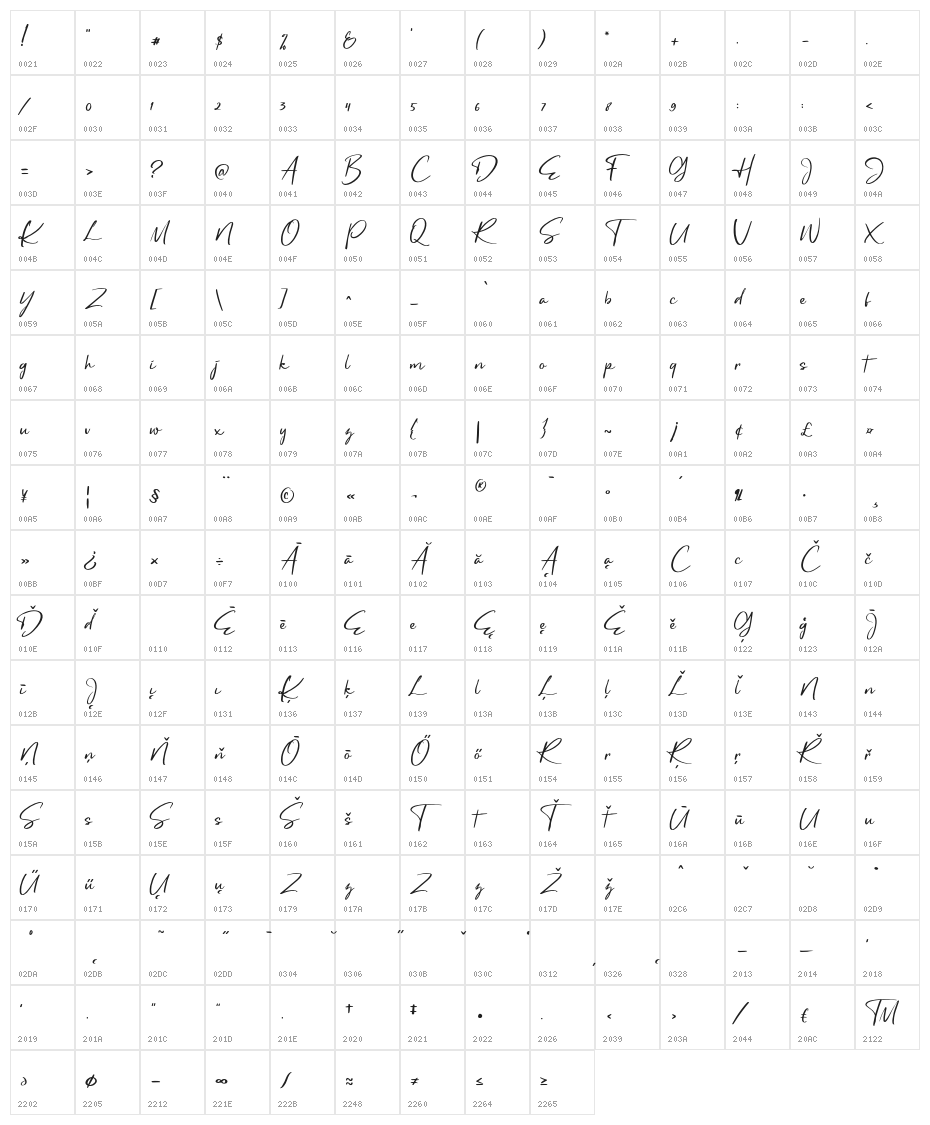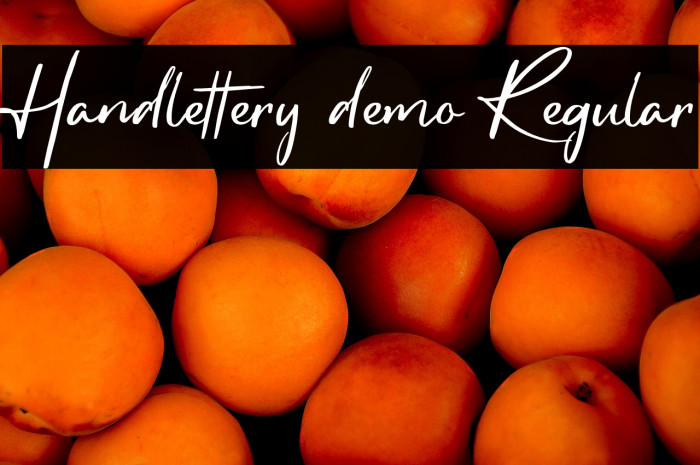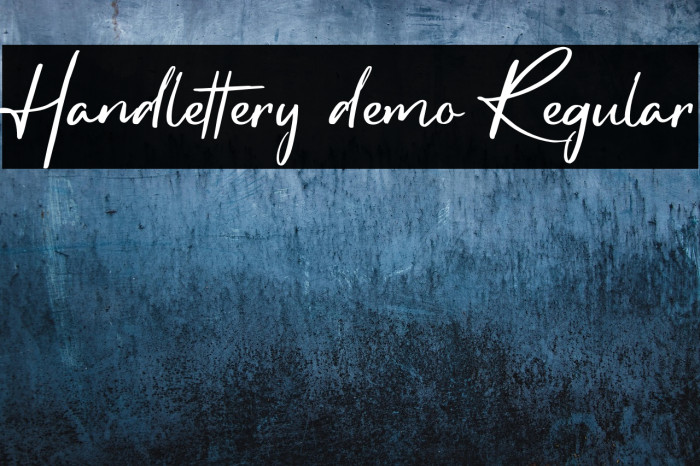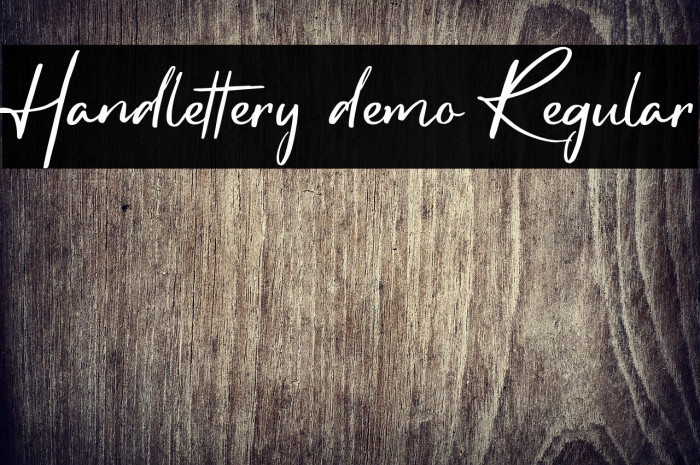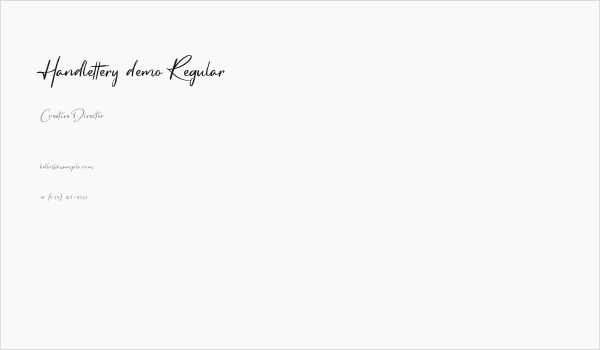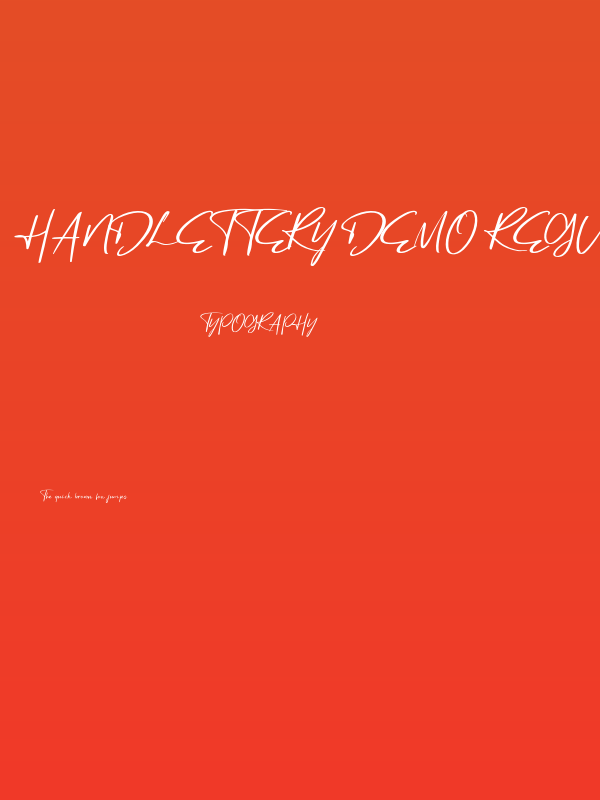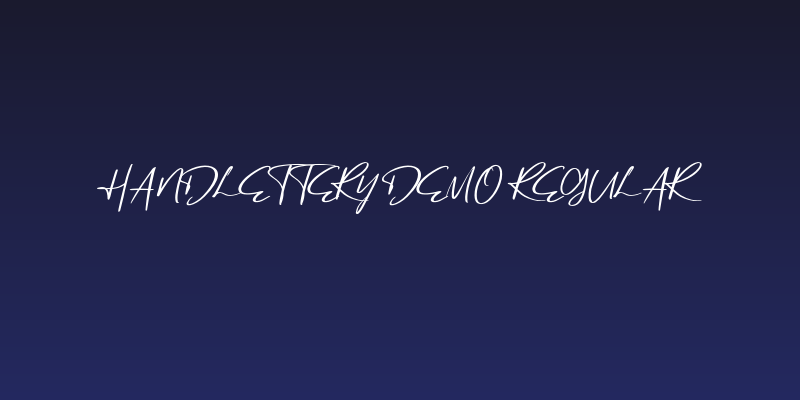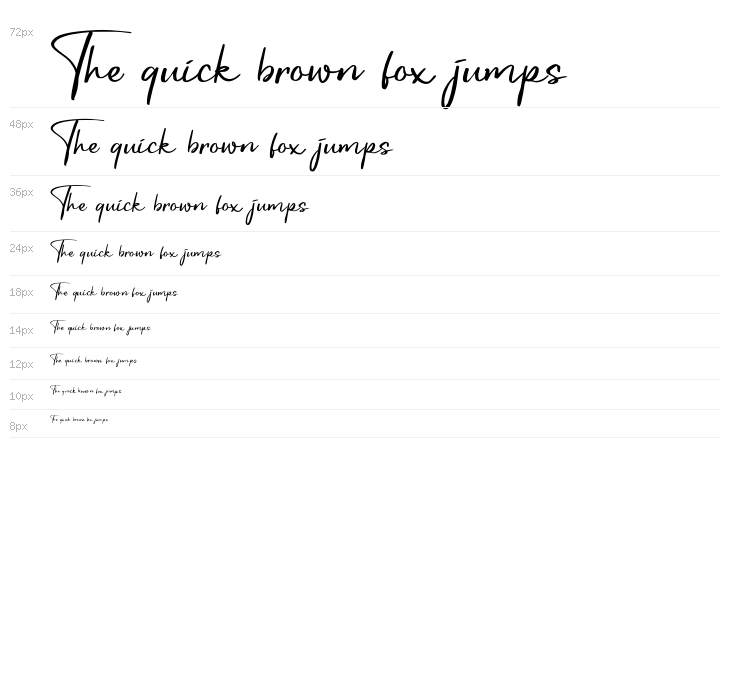
Handlettery demo Regular Font
Handlettery demo Regular Description
This font exudes a charming, handwritten style with a flowing, cursive appearance. The uppercase letters are bold and dynamic, featuring sweeping curves and elegant loops that give a sense of movement and grace. The lowercase letters maintain a consistent style, with a slightly more compact form, yet they retain the same fluidity and elegance. The numerals are clear and legible, matching the overall aesthetic with their smooth, rounded shapes. Special characters are thoughtfully designed, integrating seamlessly with the rest of the font. This font's overall look is both artistic and approachable, making it suitable for a variety of creative applications.